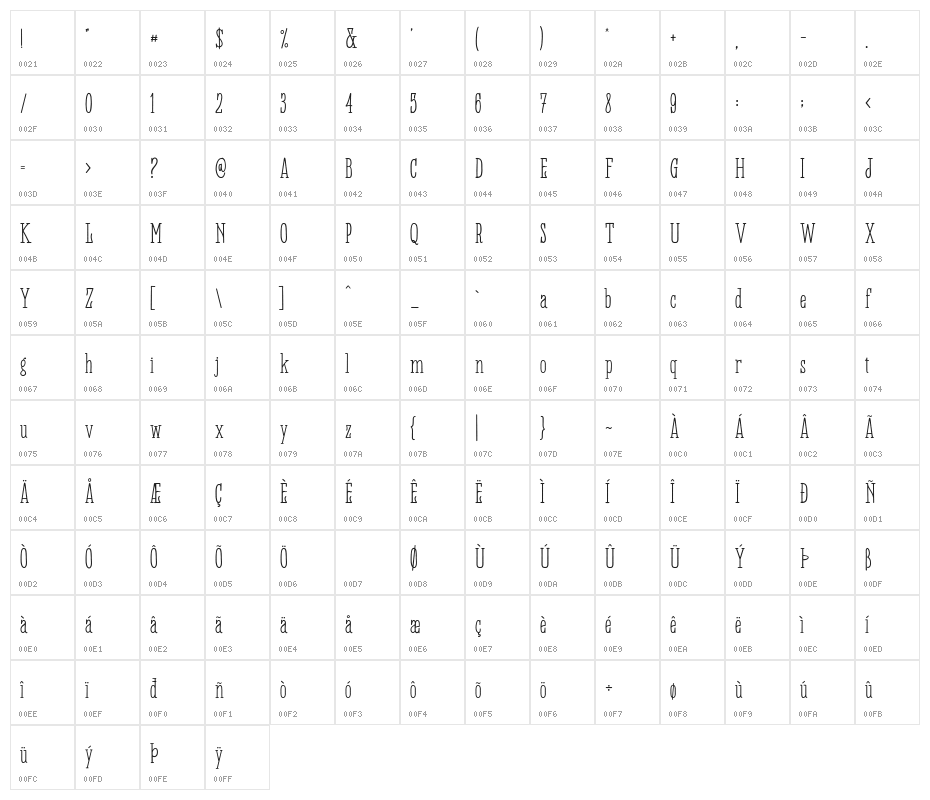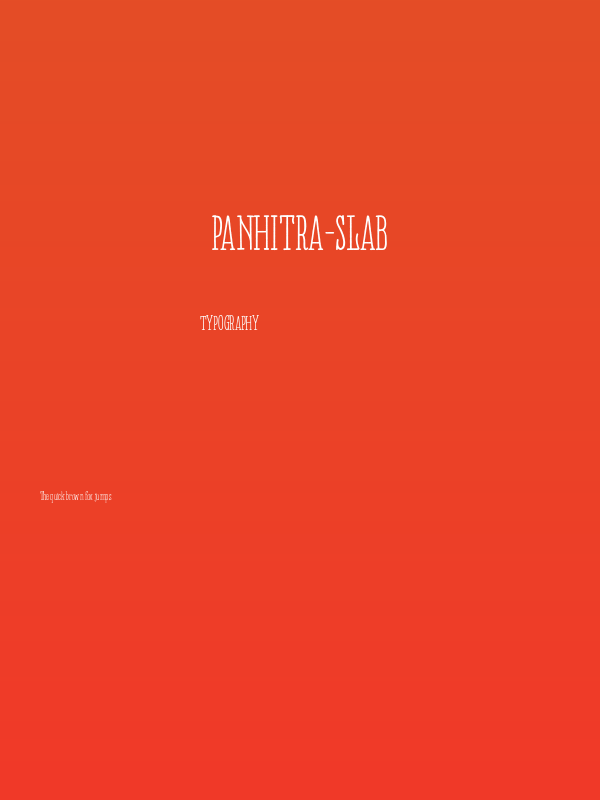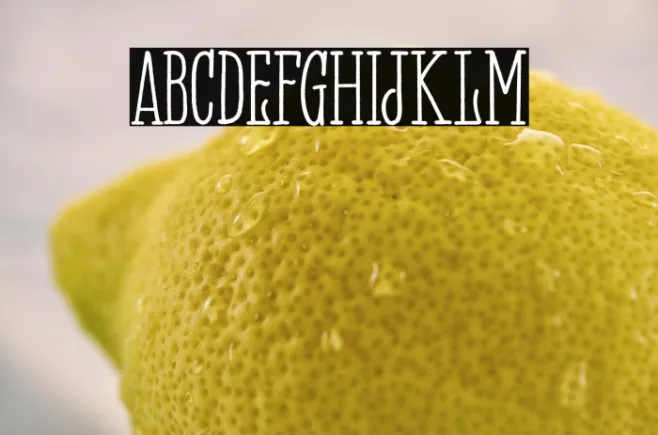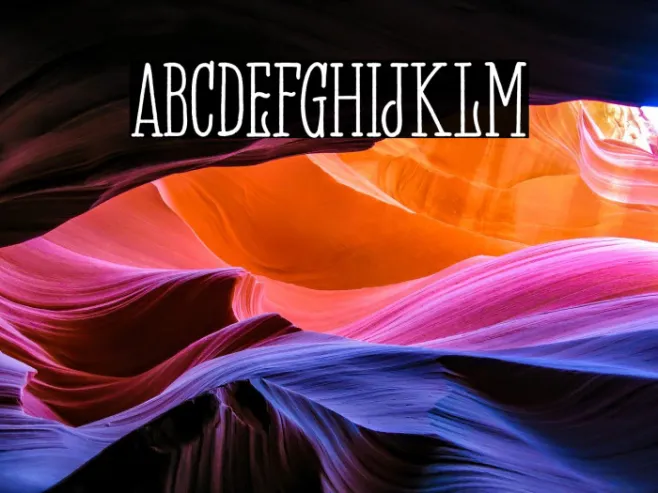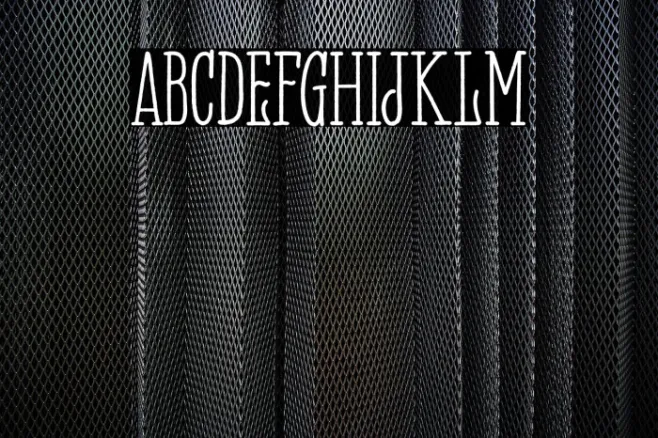
Panhitra-Slab Font
Panhitra-Slab Description
This font features a distinctive slab serif style with pronounced, block-like serifs that give it a robust and sturdy appearance. The uppercase letters are tall and slightly condensed, while the lowercase letters maintain a consistent height, providing a balanced look. The numerals are clear and legible, matching the overall aesthetic of the typeface. Special characters are well-defined, adding versatility to the font's usage. The design is both modern and classic, making it suitable for a variety of applications.
| Use Case | Headlines, Logos, Editorial design |
| Proposed Projects | Ideal for branding projects, headlines, posters, and editorial design where a strong and reliable typeface is needed. |